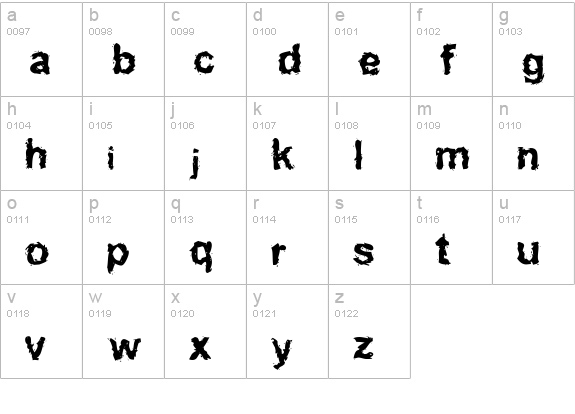
Inked weird Font Details
Introducing Inked, a truly unique and captivating font that will add a touch of eccentricity to any design project. With its offbeat and unconventional letterforms, Inked stands out from the crowd, making a bold statement wherever it is used. Inked's weird and quirky style is perfect for those looking to break free from traditional typography. Its irregular lines and unexpected angles create a visually stunning effect, leaving a lasting impression on anyone who encounters it. Whether you're designing a poster, logo, or website, Inked will inject a dose of creativity and originality into your work. But the best part? Inked is absolutely free! Yes, you read that right. This fantastic font is freely available to download at FontsMarket.com. Now you can enjoy the boundless possibilities of Inked without breaking the bank. So why wait? Embrace the weirdness and download Inked today to elevate your designs to a whole new level.